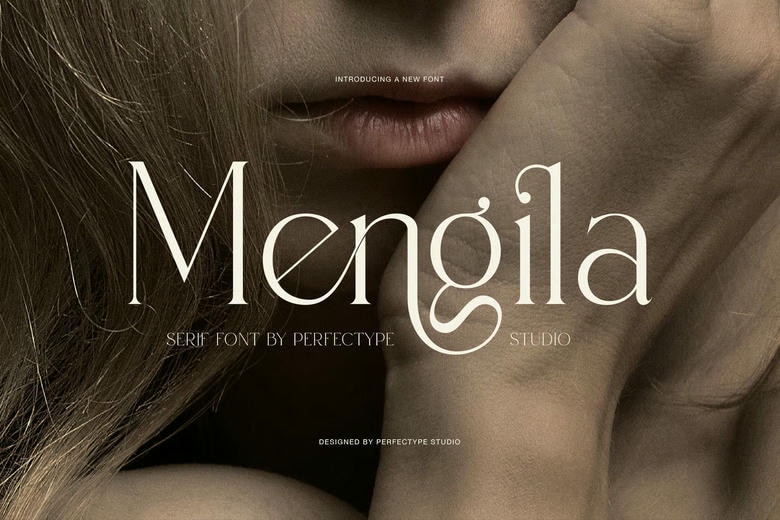
Mengila Font
Mengila is a stylish serif font made for anyone looking for a refined and graceful style. The high-contrast strokes create a gentle rhythm, while the fine hairlines give each letter a light, elegant feel. Mengila works well for fashion, beauty, lifestyle, and luxury branding.
Mengila comes with decorative ligatures and alternate letter combinations. These details help some characters connect smoothly and give words a unique look. The flowing lowercase letters make this font a great choice for elegant names, short phrases, and polished brand headlines.
Mengila Elegant Fashion Serif Font